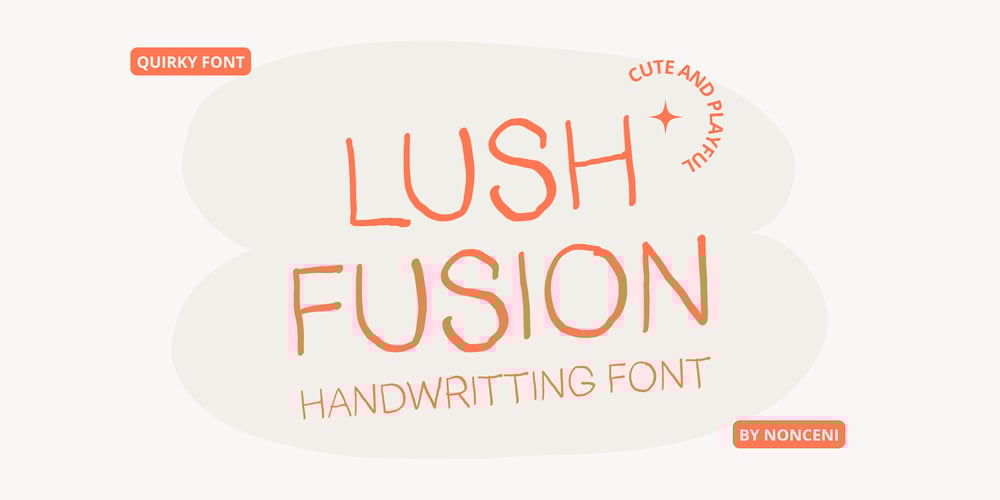
Lush Fusion
Lush Fusion font
Lush Fusion Font Family was designed by Nasiiat Akmatova and published by Nonceni. Lush Fusion contains 1 styles and family package options. Lush Fusion is a lovely handwritten font that mixes grace with a hint of fun. The lines of each letter show a playful feel, creating a charming and natural vibe. The mix of gentle curves and playful twists gives this font a special appeal, making it perfect for many art projects. Whether for invites, logos, or creative designs, Lush Fusion adds a fancy and creative touch to your words. Enjoy the richness of this font as it smoothly ties together class with a lively, strong energy, making every word a treat to see.